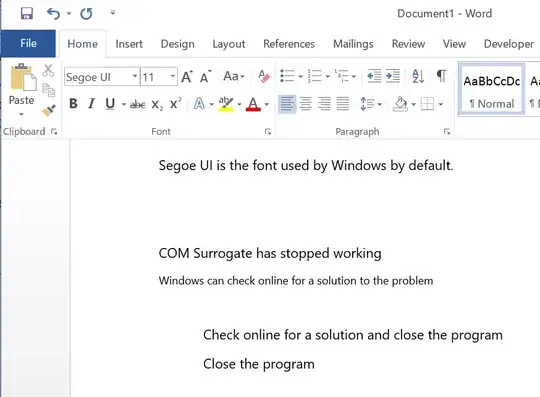
What font is used for the interface in Windows Phone 8 and Windows 8? Is this font free to use?
2Should be Segoe UI—this was introduced in Windows Vista. – bwDraco Feb 11 '16 at 21:21
By default, Segoe UI is the font used by Windows.
Windows XP used Tahoma for most user interfaces.
Windows 98 used MS Sans Serif.
As Jonno stated in his answer Segoe UI is the current default.
Windows 8 Developer Preview uses Segoe WP in some places (mostly Metro styled apps and settings) and the Windows 7 default font Segoe UI on the desktop.
The Consumer Preview of Windows 8 will use Segoe WP everywhere.
What font is used for the interface in Windows Phone 7 and Windows 8 Dev Preview?
For their Metro design language, Microsoft use fonts from the Segoe family. Windows Phone 7 uses Segoe WP.
Is this font free to use?
Segoe WP is bundled with Visual Studio 2010, but (I'm guessing here) you are probably only allowed to use it in your developed software and related materials.
A very similar Segoe UI is free for personal use, but must be licensed from Microsoft for commercial usage or for web development. Segoe UI is also closely related to Frutiger, which is sold commercially.
Segoe does not look like Frutiger at all. It, however, closely resembles [Adobe’s Myriad](https://en.wikipedia.org/wiki/Myriad_(typeface%29). – kinokijuf Mar 04 '14 at 10:16
Some say it is a version of Monotype's Segoe which has been alleged to be a rip-off of Linotype's Frutiger.